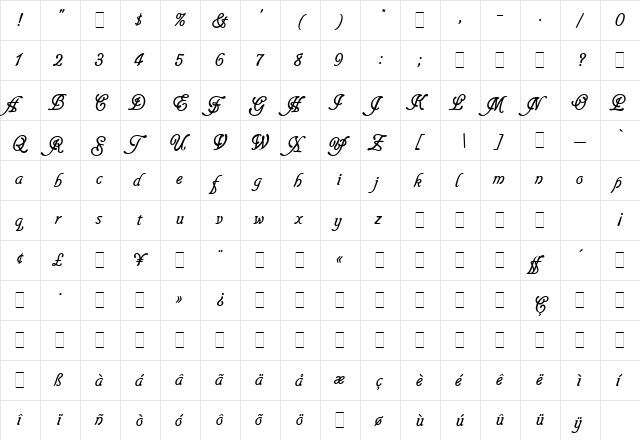
Glastonbury Let Plain Regular
Design Context for Glastonbury Let Plain Typeface
Glastonbury Let Plain is a composed and adaptable typeface that performs quietly and consistently across a wide range of design contexts.